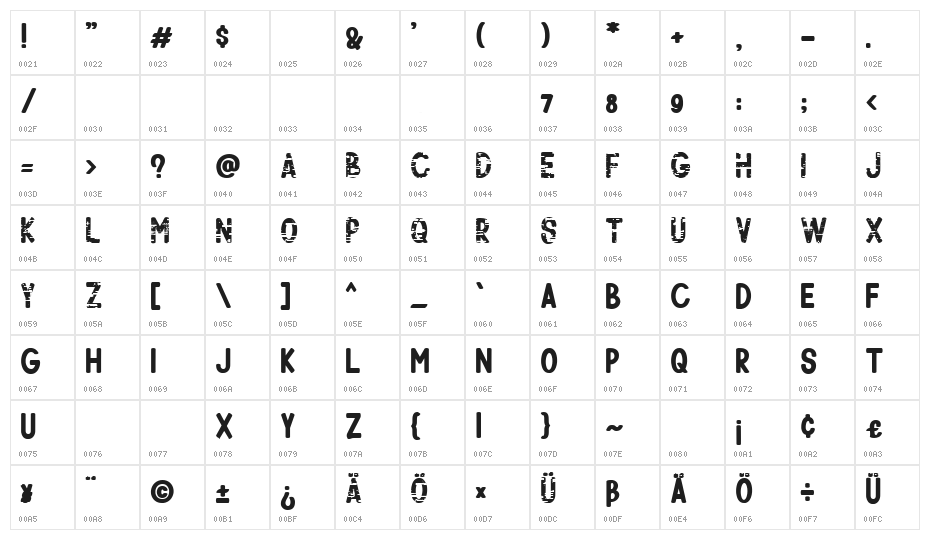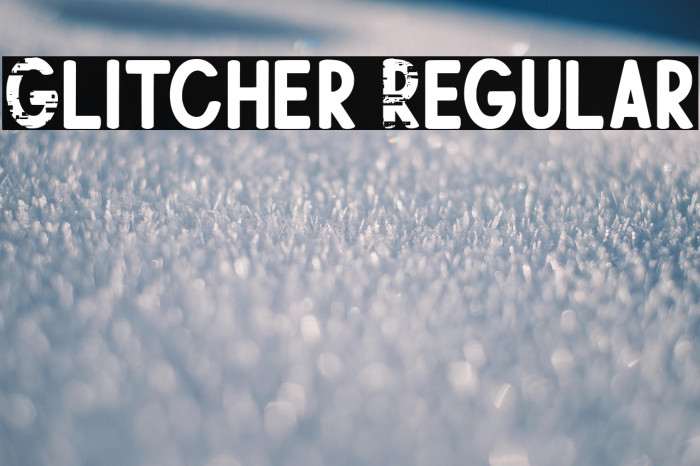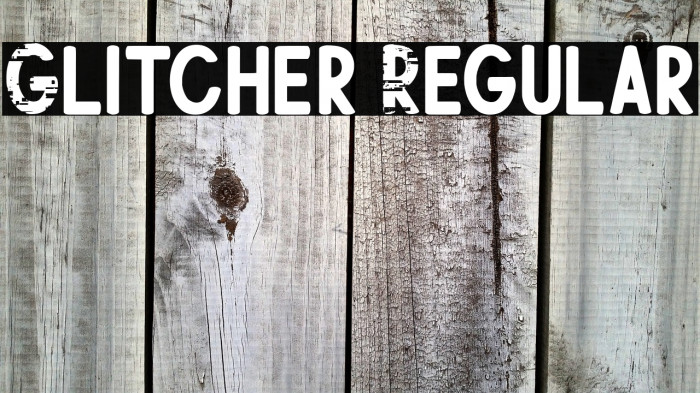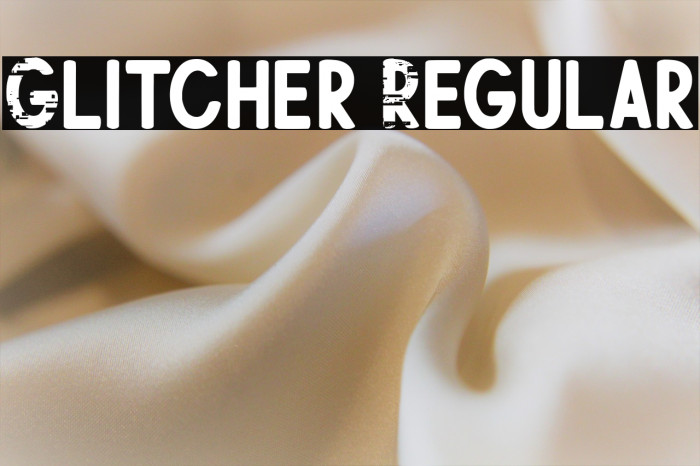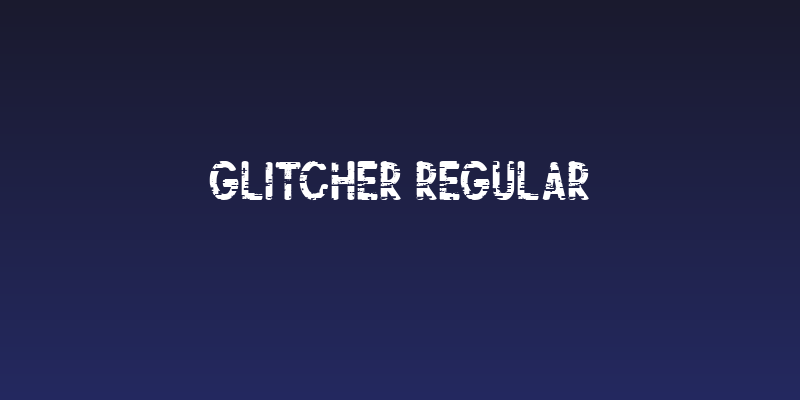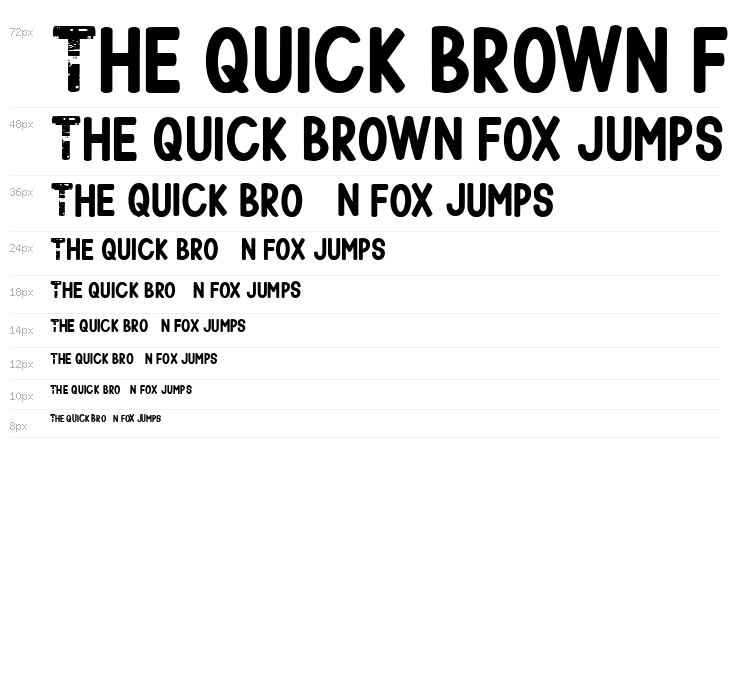
Glitcher Regular Font
Glitcher Regular Description
This font features a bold and distressed style, with an intentional glitch effect that gives it a unique, edgy appearance. The uppercase letters exhibit a rough texture, reminiscent of digital interference or static, making it ideal for projects that require a modern and unconventional look. The lowercase letters and numbers maintain a solid, bold form without the glitch effect, offering versatility in design applications. The special characters are consistent with the bold style, ensuring uniformity across all glyphs.
| Proposed Projects | Ideal for digital art, music album covers, video game titles, and edgy branding projects. |